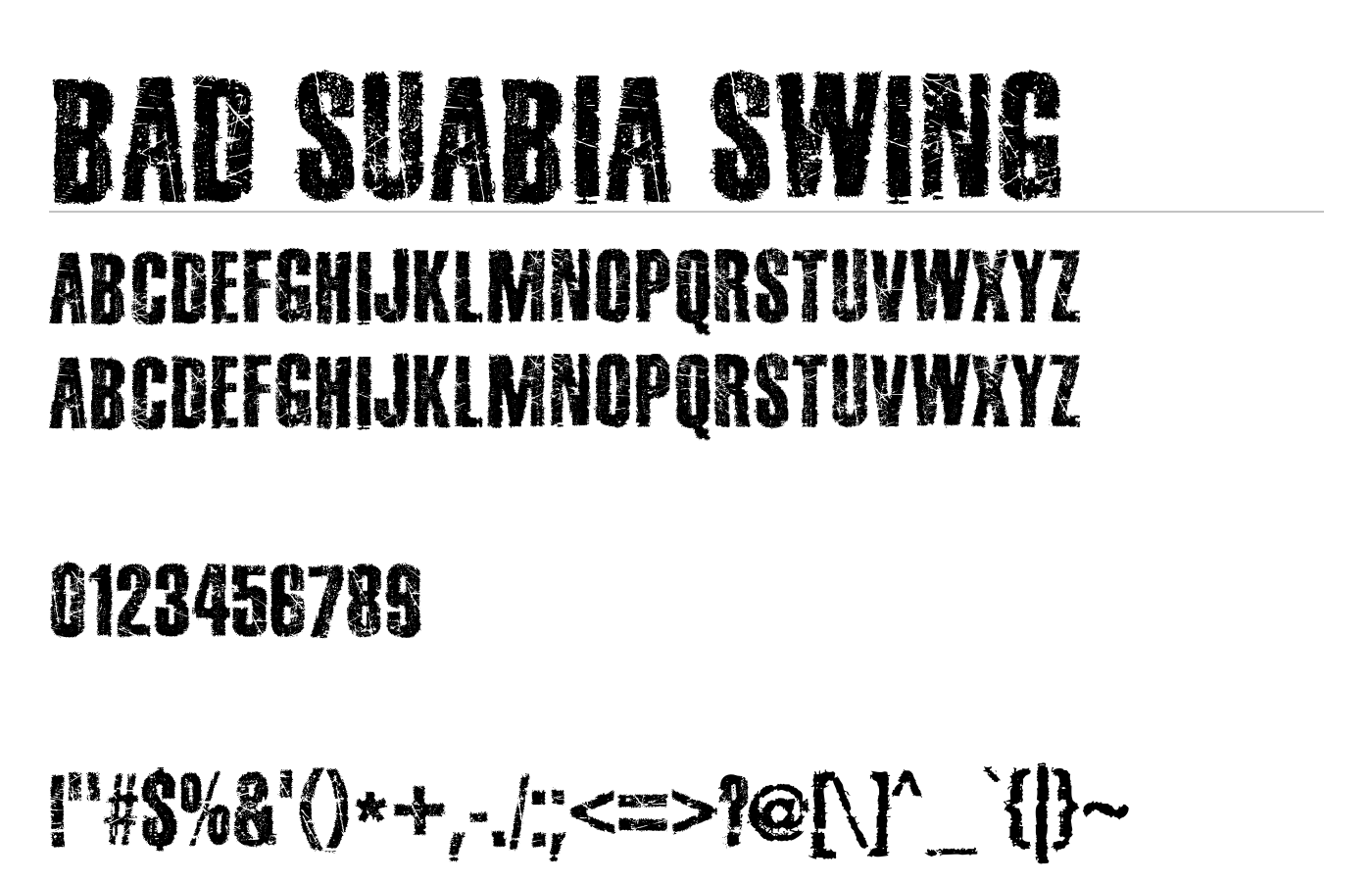
Bad Suabia Swing is a bold, condensed sans-serif font with a distressed, textured appearance that gives it a gritty, vintage feel. Its strong vertical lines and rough edges make it perfect for designs seeking a rugged, rebellious, or industrial vibe. This font works well in bold headlines, posters, and branding that aim to stand out with a raw, impactful character.
Bad Suabia Swing Font
About Bad Suabia Swing Font